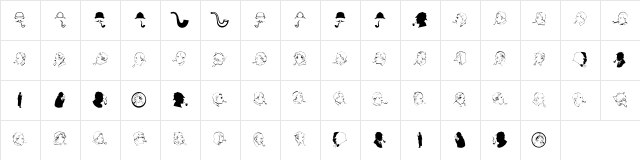
JMH Sherlock Dingbats Regular
Design Context for JMH Sherlock Dingbats Typeface
JMH Sherlock Dingbats is a composed and adaptable typeface that performs quietly and consistently across a wide range of design contexts.